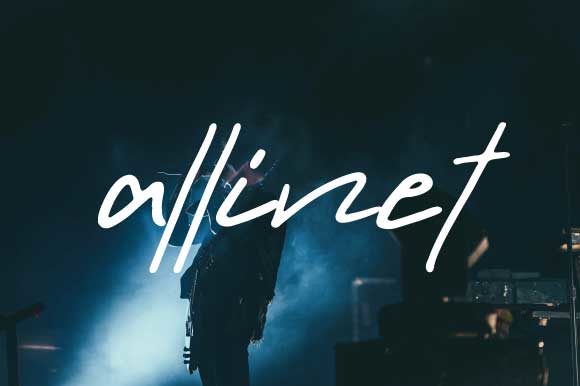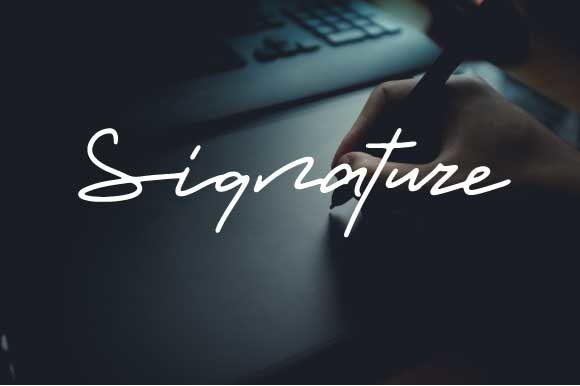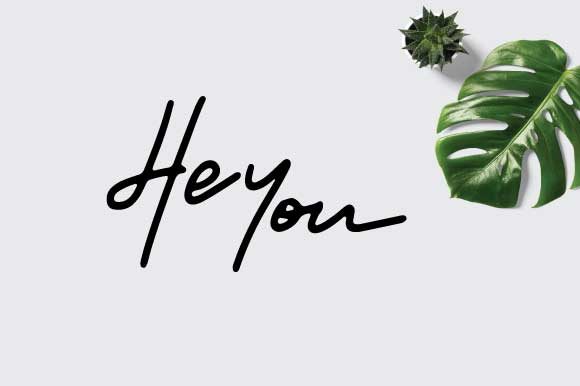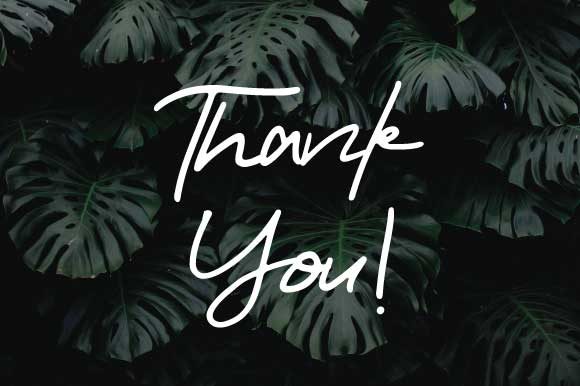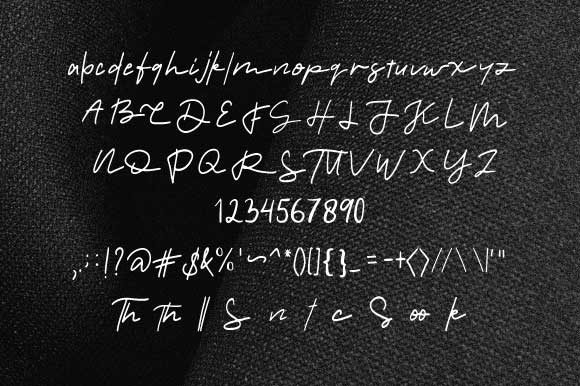
Introducing Allinet Font: The Epitome of Modern Script Typography
In the realm of typography, fonts play a pivotal role in conveying messages, evoking emotions, and creating a lasting impression. For designers and crafters, selecting the right font can elevate a project from ordinary to extraordinary. This is where Allinet Font comes into play, boasting quick strokes and smooth lines that epitomize modern script typography.
Allinet Features: A Symphony of Modernity
Allinet Font is distinguished by its quick strokes and smooth lines, making it an incredibly modern script. This font is not just a collection of letters; it’s an experience that brings a fresh perspective to the world of typography. Its design is meticulously crafted to ensure that every character, every word, and every sentence flows seamlessly, creating a harmonious visual experience.
Key Features of Allinet Font
- Modern Aesthetic: Allinet Font embodies the essence of modernity with its sleek and streamlined design. It’s perfect for projects that demand a contemporary look and feel.
- Quick Strokes and Smooth Lines: The font’s defining characteristic is its quick strokes and smooth lines, which lend it an air of elegance and sophistication.
- Versatility: Allinet Font is incredibly versatile, making it suitable for a wide range of applications, from digital media to print, and from branding to personal projects.
- Legibility: Despite its modern and cursive nature, Allinet Font maintains high legibility, ensuring that messages are conveyed clearly and effectively.
Applications of Allinet Font
The versatility of Allinet Font makes it an invaluable asset for designers and crafters across various domains. Here are some of the key areas where Allinet Font can make a significant impact:
Digital Media
In the digital realm, Allinet Font can be used in website design, social media graphics, and digital advertising. Its modern aesthetic and smooth lines make it perfect for engaging online audiences.
Print Media
For print projects, Allinet Font can add a touch of elegance to brochures, posters, and business cards. Its legibility and aesthetic appeal make it an excellent choice for any print material.
Branding and Identity
Allinet Font can be a game-changer for branding and identity projects. Its unique and modern script can help create a memorable brand image, setting a business apart from its competitors.
Tips for Using Allinet Font Effectively
To maximize the potential of Allinet Font, consider the following tips:
Pairing with Other Fonts
Allinet Font can be paired with sans-serif fonts for a balanced look or with other script fonts for a more dramatic effect. The key is to maintain harmony and ensure readability.
Color Selection
The choice of color can significantly impact the effectiveness of Allinet Font. Neutral colors can provide a professional look, while bold colors can add a touch of vibrancy and excitement.
Size and Spacing
Appropriate sizing and spacing are crucial for the optimal use of Allinet Font. Ensure that the text is large enough to be readable and that there’s sufficient spacing between lines and characters for a clean look.
Allinet Font, with its quick strokes and smooth lines, represents the pinnacle of modern script typography. Its versatility, aesthetic appeal, and legibility make it an indispensable tool for designers and crafters. Whether you’re working on a digital project, a print material, or a branding initiative, Allinet Font offers the perfect blend of style and functionality. Embrace Allinet Font in your next project and experience the transformative power of modern typography.